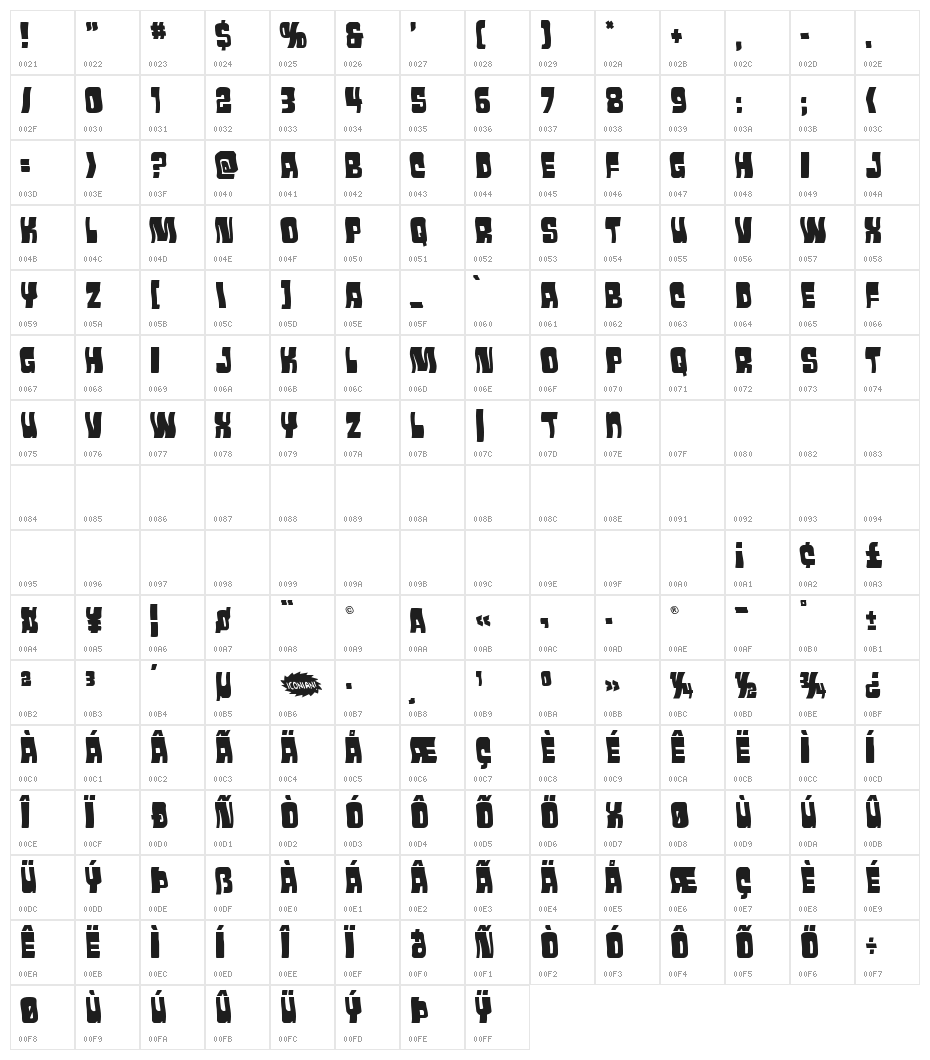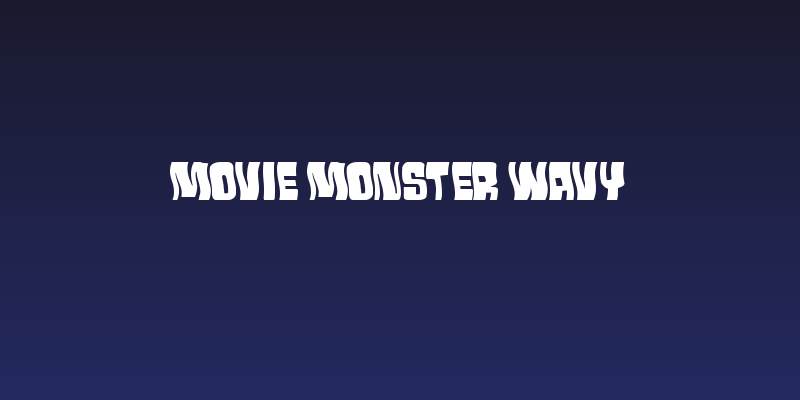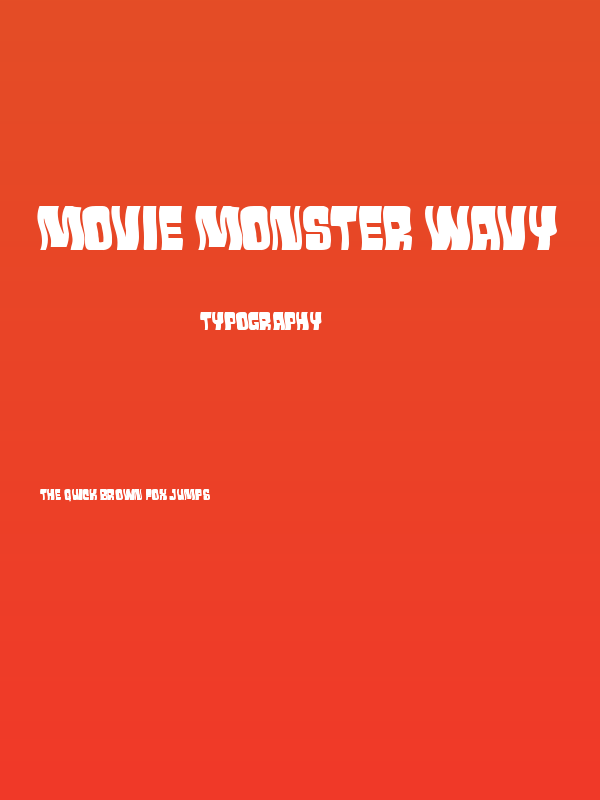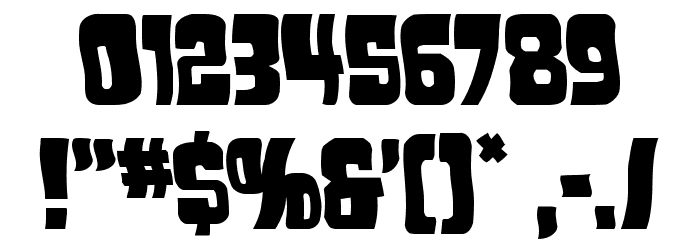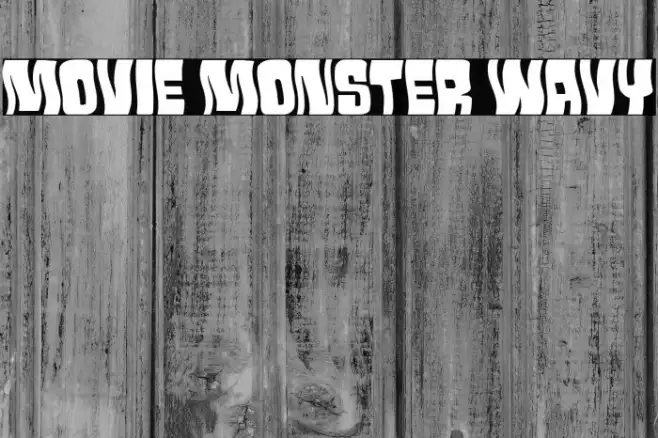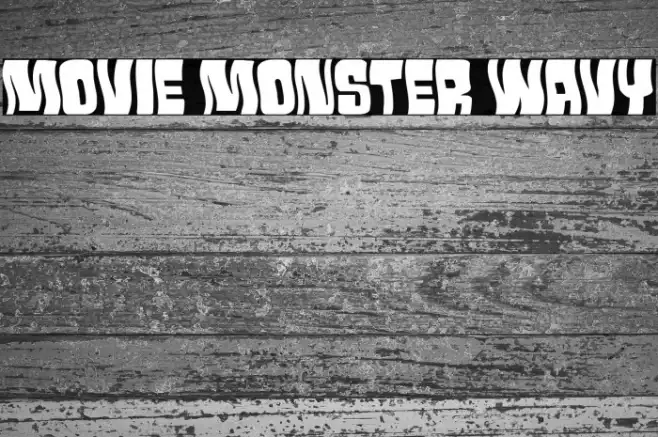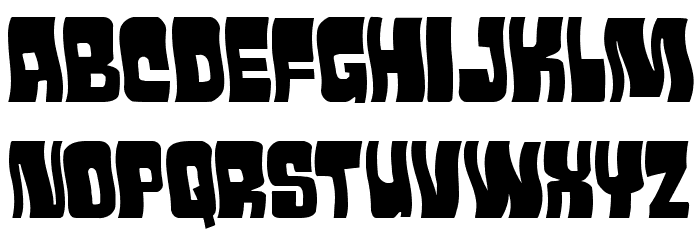
Movie Monster Wavy Font
Movie Monster Wavy Description
This font features a bold, wavy design that gives it a dynamic and energetic appearance. The letters are heavily stylized with a unique distortion that creates a sense of movement, making it ideal for eye-catching designs. The uppercase and lowercase letters maintain a consistent style, with numbers and special characters following the same bold and wavy theme. The font's thick strokes and playful curves make it stand out, perfect for projects that require a strong visual impact.